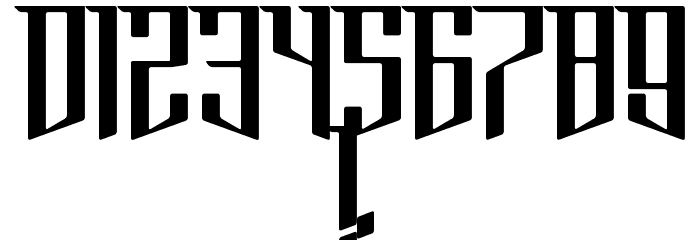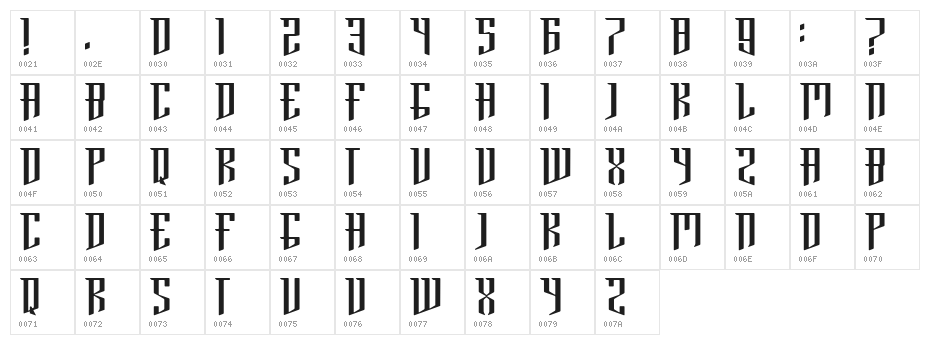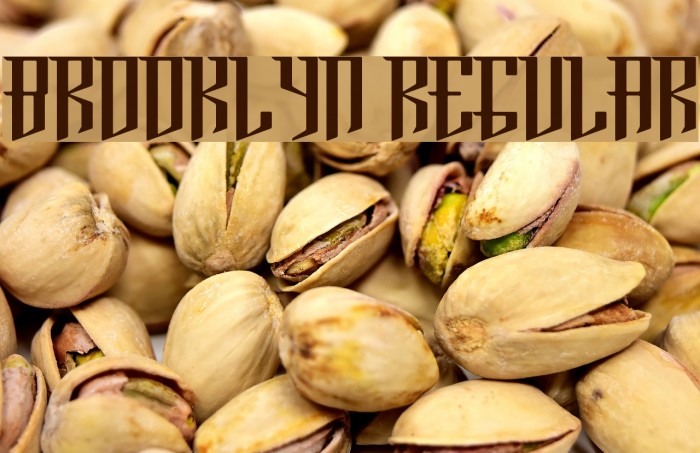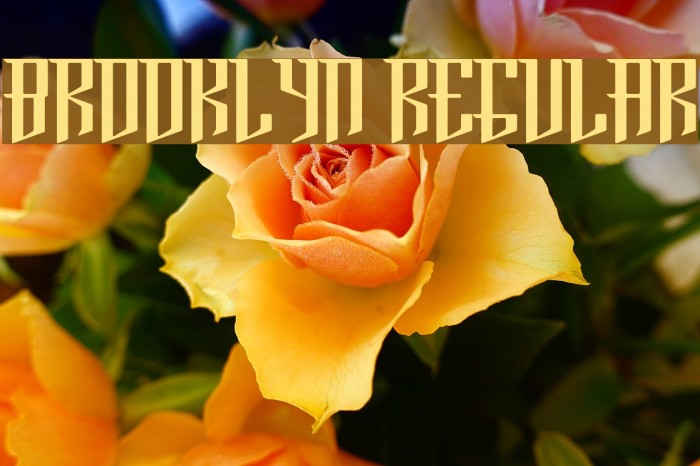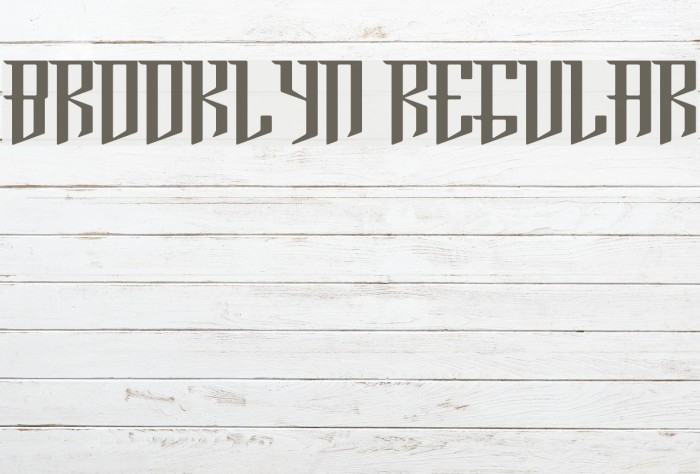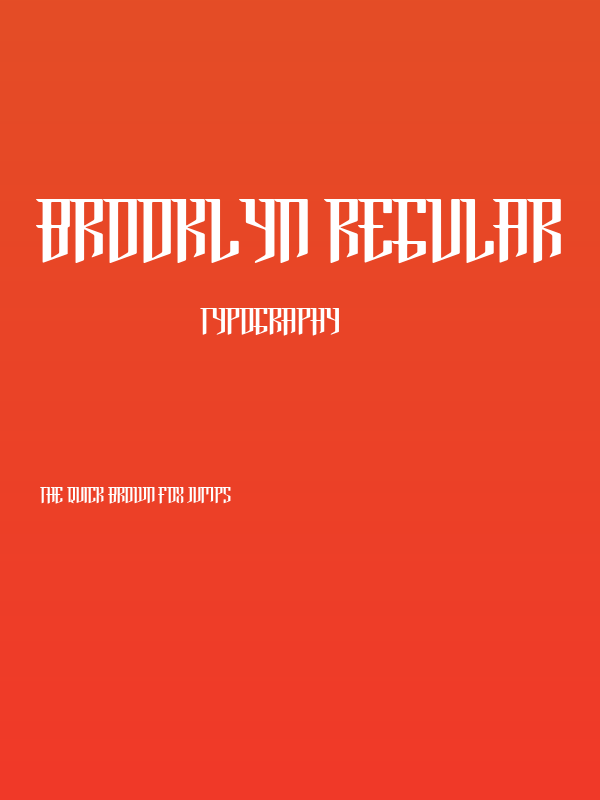
Brooklyn Regular Font
Brooklyn Regular Description
This font features a bold and striking design with sharp, angular lines and a geometric structure. The uppercase letters are tall and narrow, creating a sense of height and drama. The lowercase letters maintain the same angular style, ensuring consistency across the typeface. Numbers and special characters are designed with the same attention to detail, making them stand out with their unique shapes. The overall appearance is modern and edgy, suitable for projects that require a strong visual impact.
| Proposed Projects | Ideal for branding, posters, album covers, and any design needing a bold statement. |